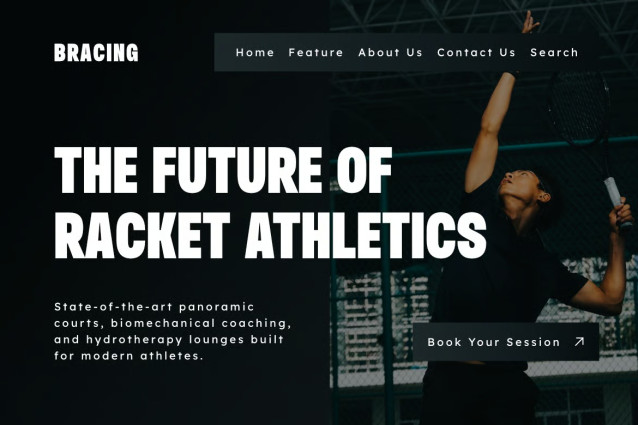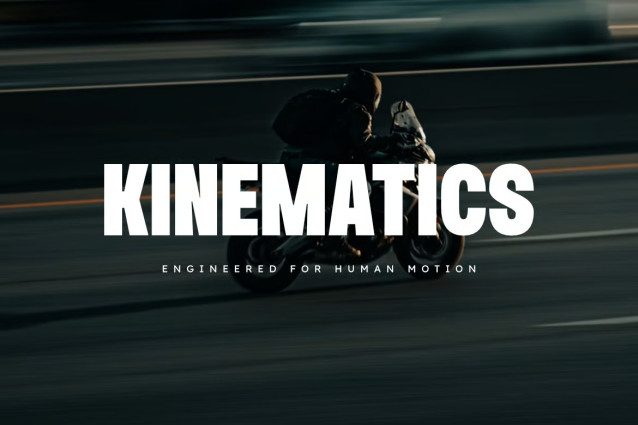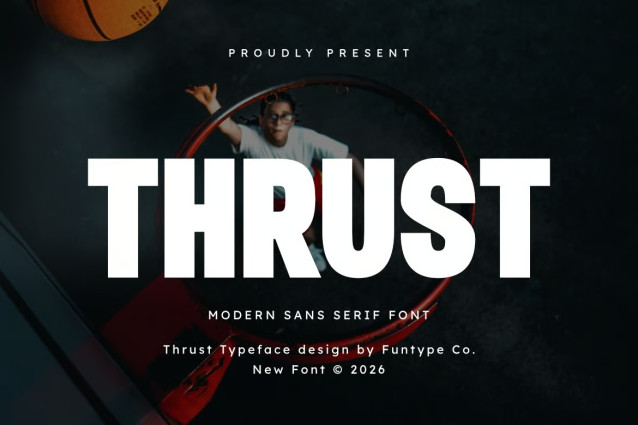
Thrust Font
Thrust is a bold, high-impact, and modern sans serif display font, engineered to bring a powerful athletic presence, solid heavy geometry, and high-energy visual aesthetic to contemporary design layouts. Featuring a robust, thick letterform structure and commanding presence, Thrust introduces a dynamic sports broadcast identity, high-energy editorial publishing, tournament event promotion, and prominent digital presentation designed to claim absolute visual focus.
This font family is the ultimate choice for creative directors, athletic event organizers, and publication publishers looking to implement a robust typography identity for major text hierarchies. Whether you are developing bold corporate enterprise logotypes, basketball championship posters, energetic beverage packaging labels, cinematic action movie title sequences, outdoor campaign headers, or prominent digital web banners, Thrust stands out with supreme legibility and commanding structural confidence.